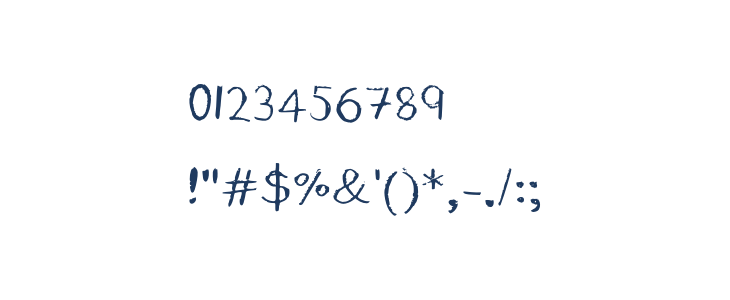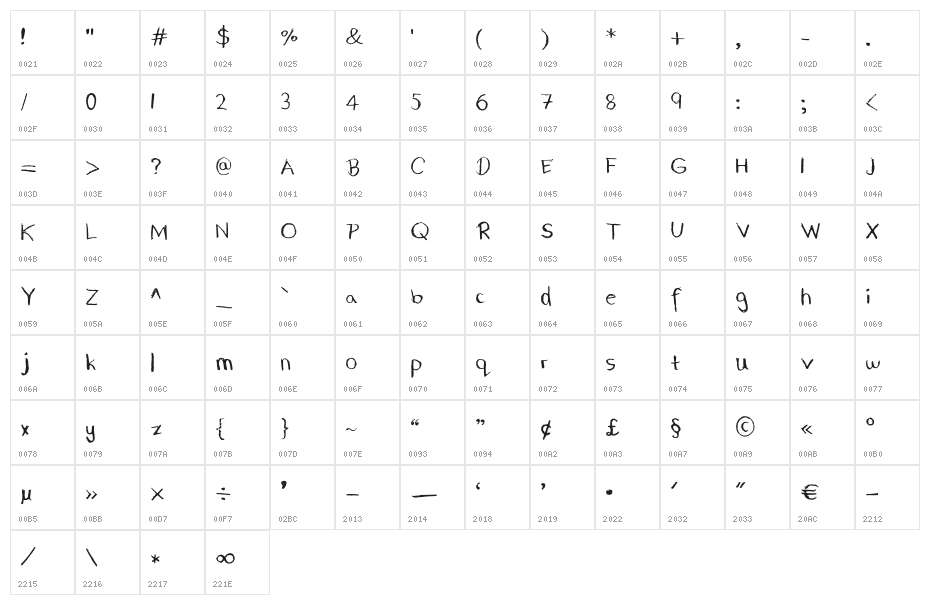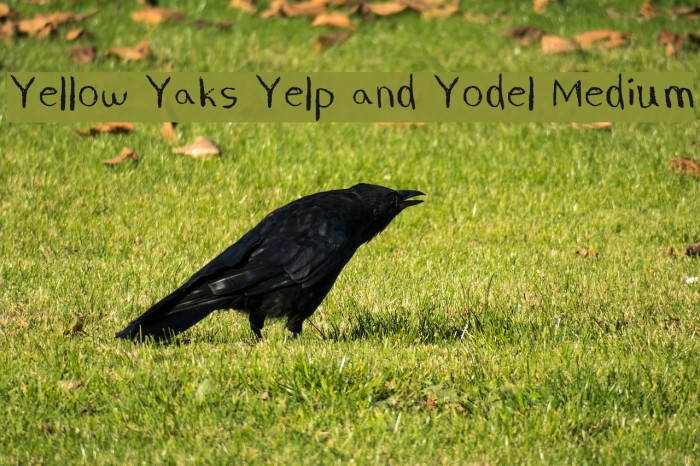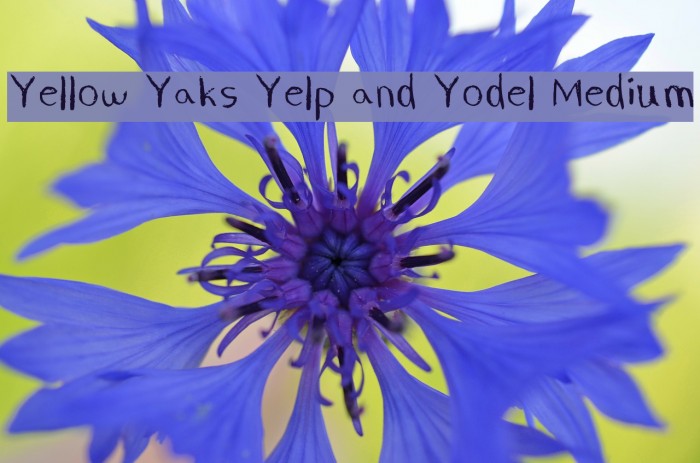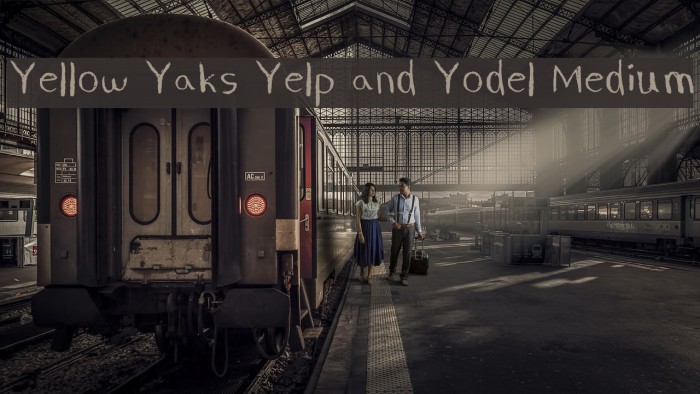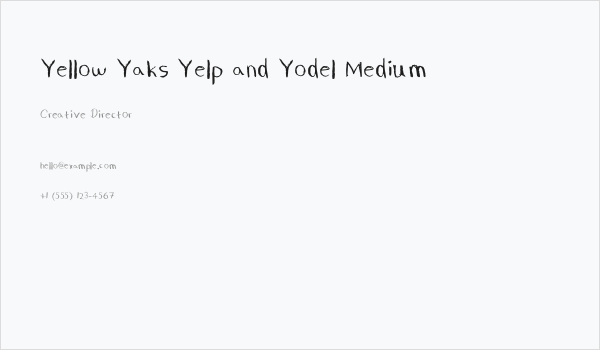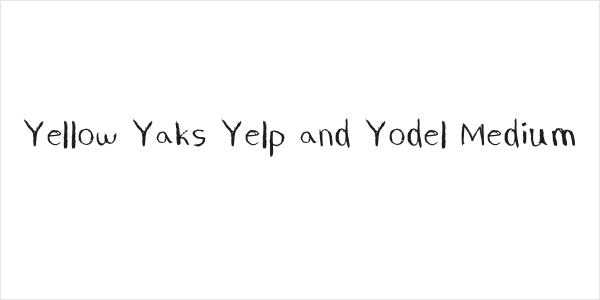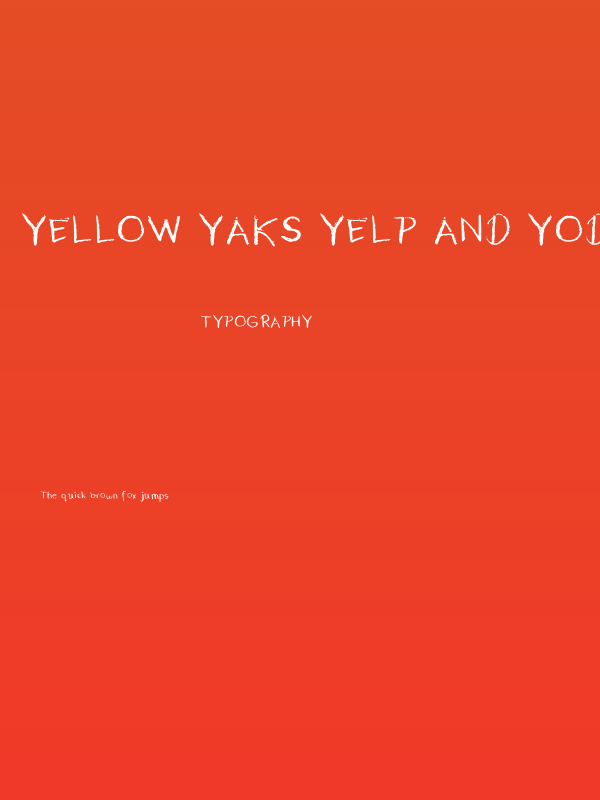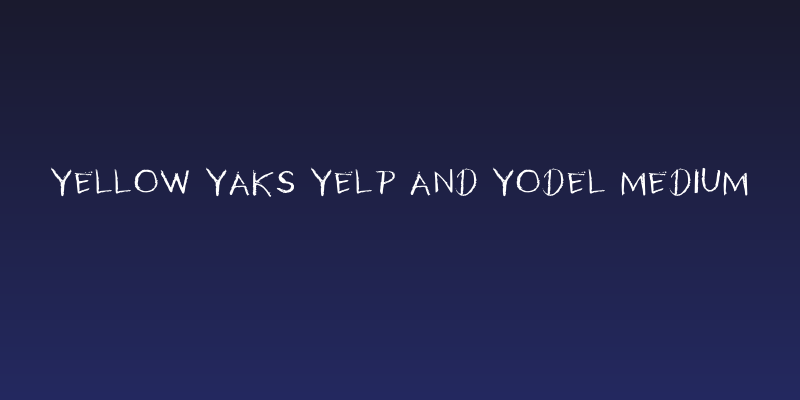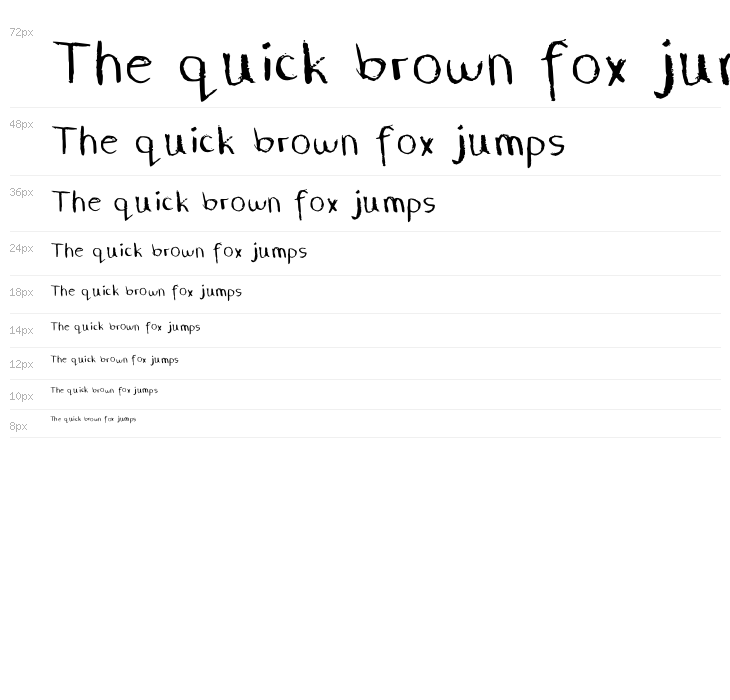
Yellow Yaks Yelp and Yodel Medium Font
Yellow Yaks Yelp and Yodel Medium Description
This font features a playful and artistic style, characterized by its uneven strokes and hand-drawn appearance. The letters exhibit a casual, almost whimsical quality, with varying thicknesses that add a dynamic and lively feel. The uppercase and lowercase letters maintain a consistent aesthetic, while the numbers and special characters complement the overall design. The font's irregularities give it a unique charm, making it suitable for creative and informal projects. Its distinctive look is ideal for capturing attention and conveying a sense of fun and spontaneity.
| Proposed Projects | Ideal for children's books, creative posters, playful branding, and artistic invitations. |